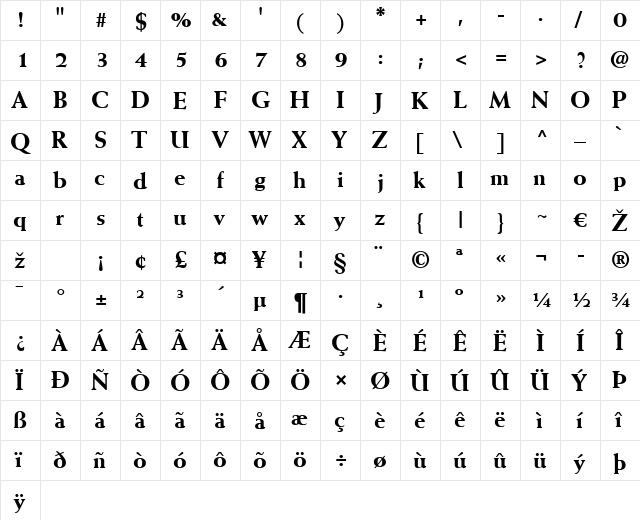
Weiss LT ExtraBold Regular
Design Context for Weiss LT ExtraBold Typeface
Weiss LT ExtraBold takes a measured approach to typography — its balanced proportions and neutral character make it a reliable workhorse for both digital and print work. Its bold stroke weight gives it real presence on the page.